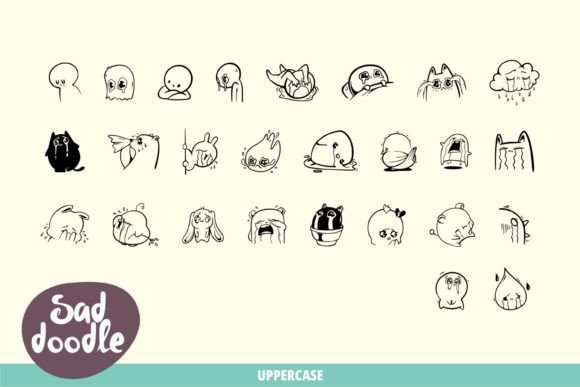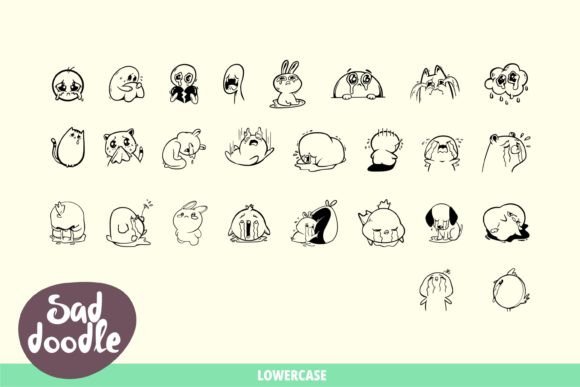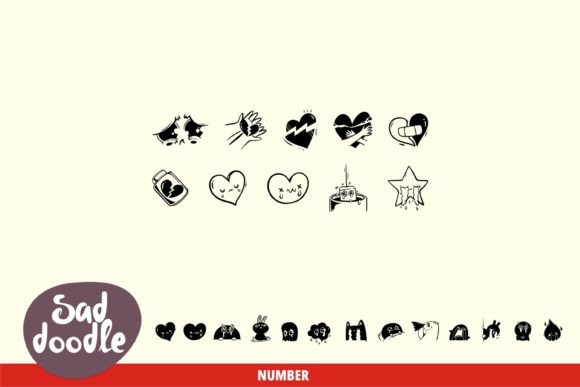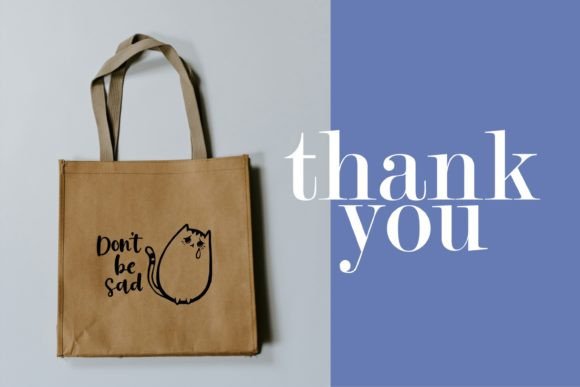
Introduction to Sad Doodle Font
Have you ever stared at a blank page, trying to spark creativity for your next project, only to find yourself stuck in a sea of monotony? The struggle is real for many designers, but fear not – we’re here to introduce a game-changing solution that will breathe life into your designs and plans. Say hello to the enchanting Sad Doodle Font, a whimsical dingbat typeface that’s about to revolutionize the way you approach your creative projects.
What sets Sad Doodle Font apart from the rest is its unique blend of charm and individuality. Each hand-drawn icon is meticulously crafted to provide a high-quality design resource that’s perfect for adding a playful edge to your concepts. Whether you’re working on a project that requires a transparent background or simply want to spice up your designs, Sad Doodle Font is an invaluable asset that’s sure to stand out.
Key Features of Sad Doodle Font
- Unique, hand-drawn design style with a distressed aesthetic, perfect for adding a creative touch to any project.
- High-quality design resource with transparent background, ideal for digital artists, graphic designers, and creatives.
- Perfect for use in creative projects, such as digital art, graphic design, and typography, where a unique and emotive font is required.
Honest Review: Sad Doodle Font
As a designer, I’m always on the lookout for high-quality design resources to elevate my creative projects. The Sad Doodle Font caught my attention with its unique and quirky aesthetic, making it perfect for adding a touch of whimsy to my designs.
Here’s what I like about the Sad Doodle Font:
- ✨ Unique and expressive characters that add a playful touch to my designs.
- ✨ The transparent background makes it easy to use with any color or image.
- ⚠️ The font may not be suitable for formal or professional projects, as it’s quite informal and playful.
- ⚠️ The characters can be quite large, so be mindful of scaling and legibility.
Overall, I’m impressed with the Sad Doodle Font and its potential to add a creative spark to my designs. While it may not be suitable for all projects, it’s definitely a valuable addition to any designer’s toolkit.
How to Use Sad Doodle Font
Tips for Getting the Most Out of Sad Doodle Font
To get the most out of the Sad Doodle Font, experiment with different font sizes, colors, and styles. Pair the font with other design elements, such as textures and graphics, to create a unique and emotive design. Use the font in creative projects, such as social media graphics, posters, and flyers.
The Sad Doodle Font is commonly used in designs that require a touch of sadness or melancholy, such as:
- Social media graphics for mental health awareness
- Posters and flyers for music events with a melancholic theme
- Presentations and documents for academic or creative projects